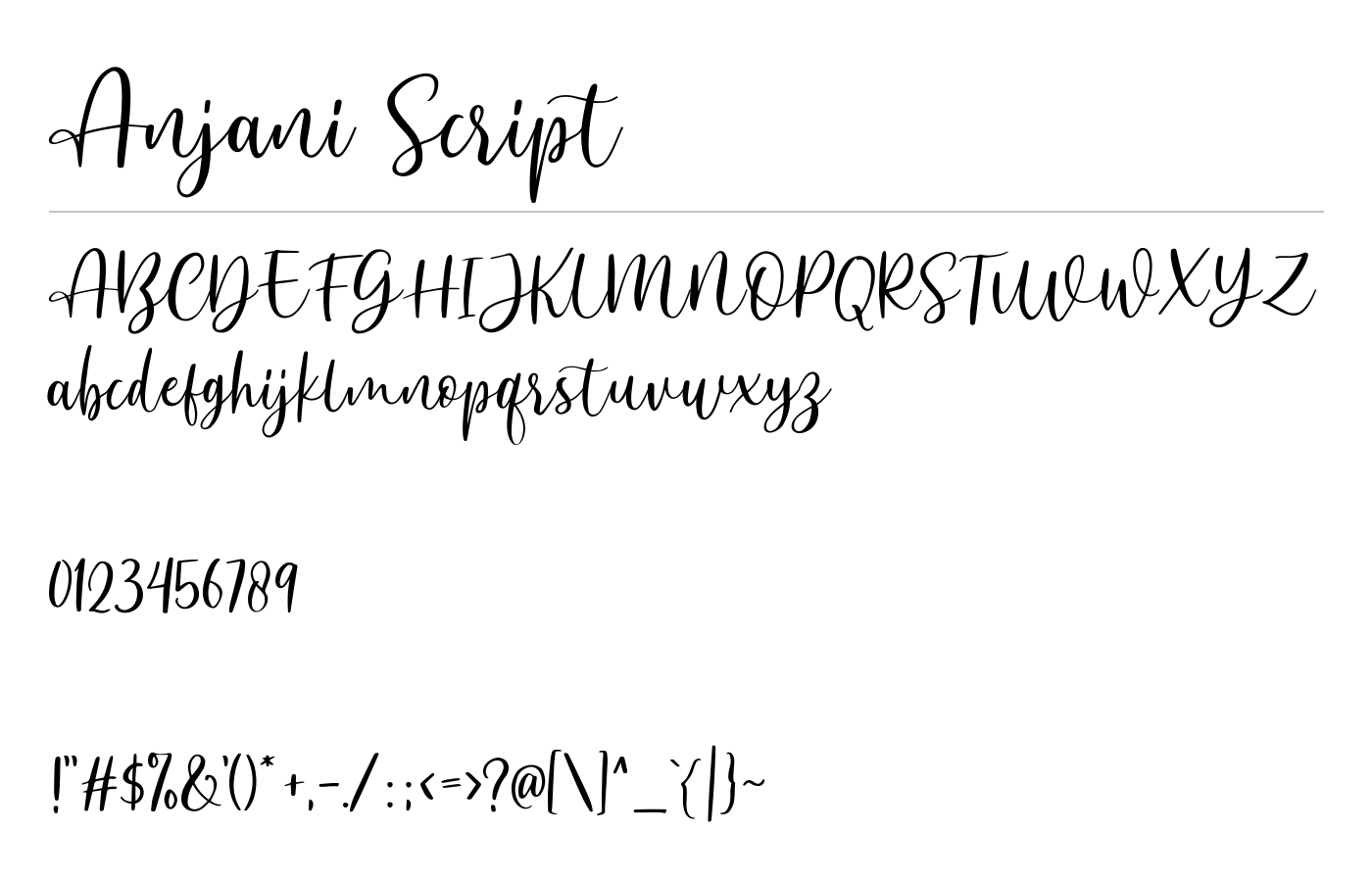
Anjani Script is an elegant and playful handwritten script font characterized by its smooth, flowing strokes and delicate swashes. With a light weight and moderately tall x-height, it offers a friendly and approachable feel, perfect for creative and feminine branding, invitations, and social media graphics. Its lively letterforms and clear readability make it suitable for headlines and decorative text where a touch of charm and personality is desired.
Anjani Script Font
About Anjani Script Font
| Font family | Anjani Script Font |